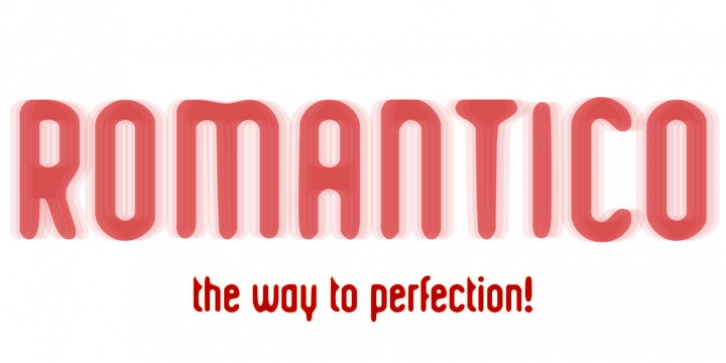
Kustomtype’s “Romantico” font is a sans serif font family with a regular & oblique version. It contains all upper & lower cases. The “Romantico” family is coordinated into letterforms, metrics, and weights to work better together. Why still looking for old school types for your posters, advertising, text, design, artwork, headtext, editoral design, magazines, etc.?